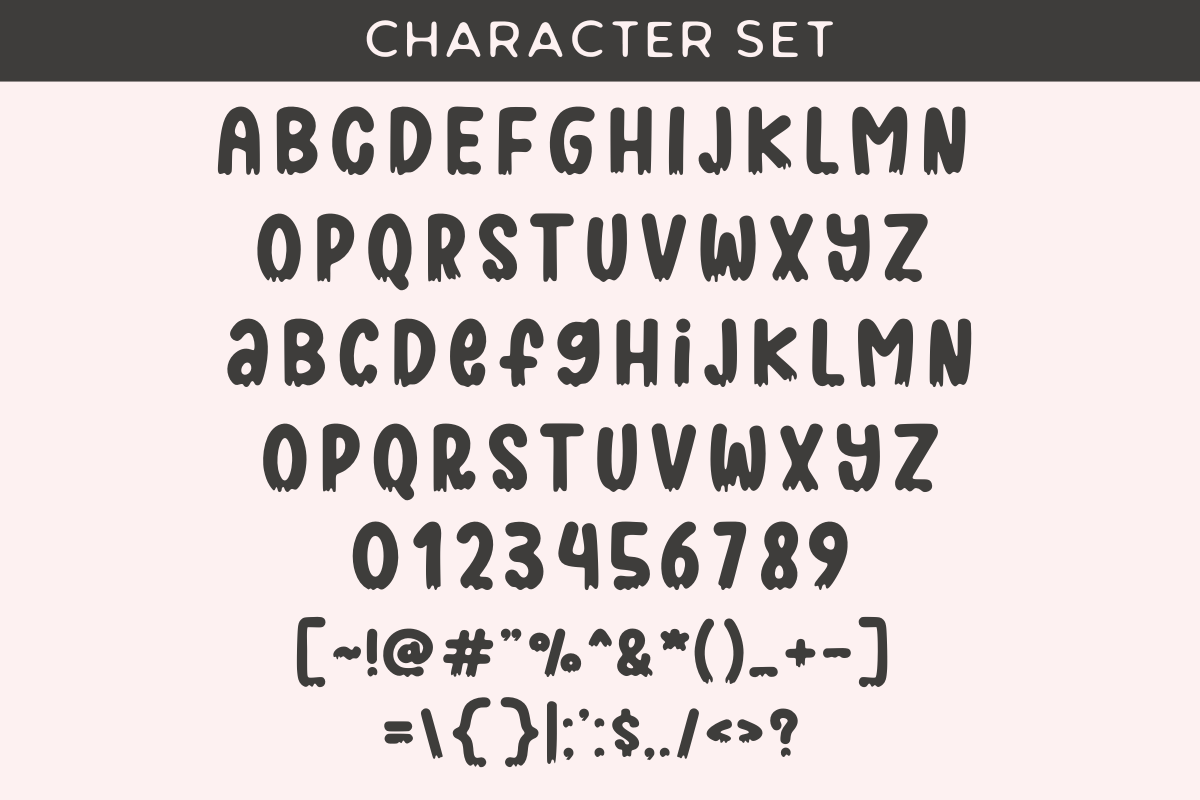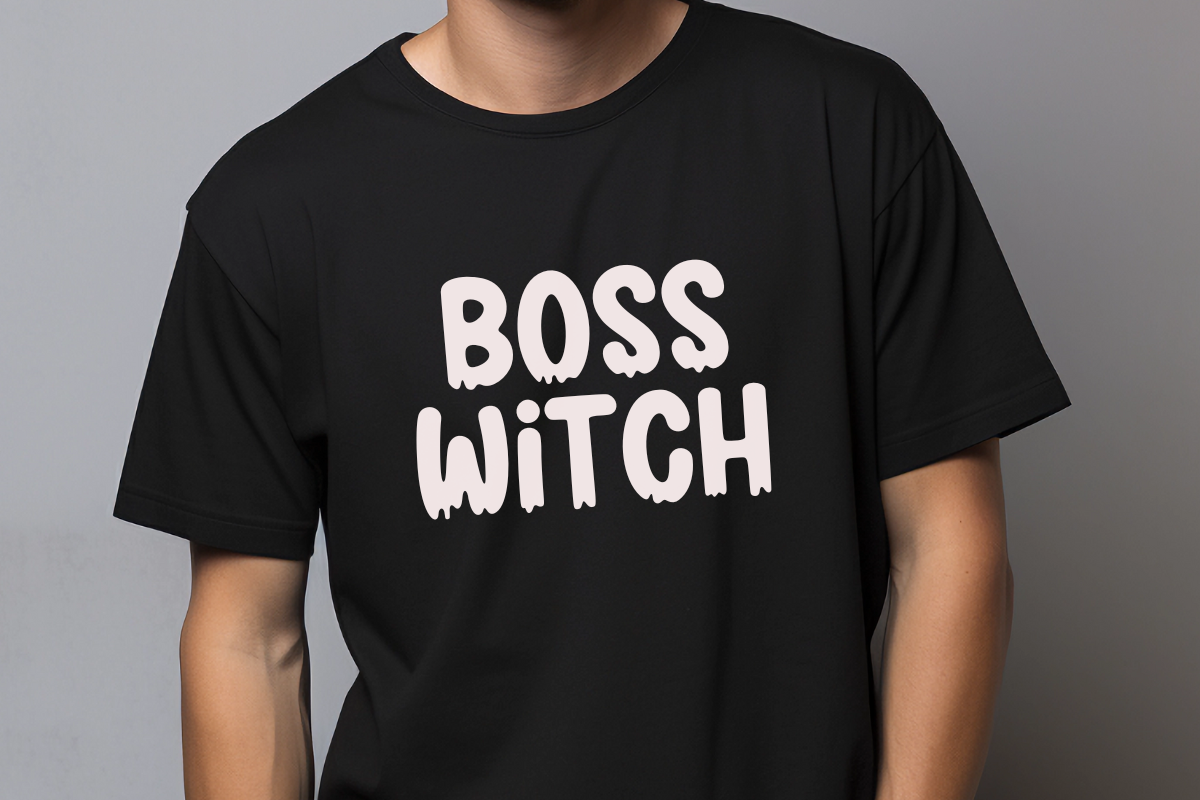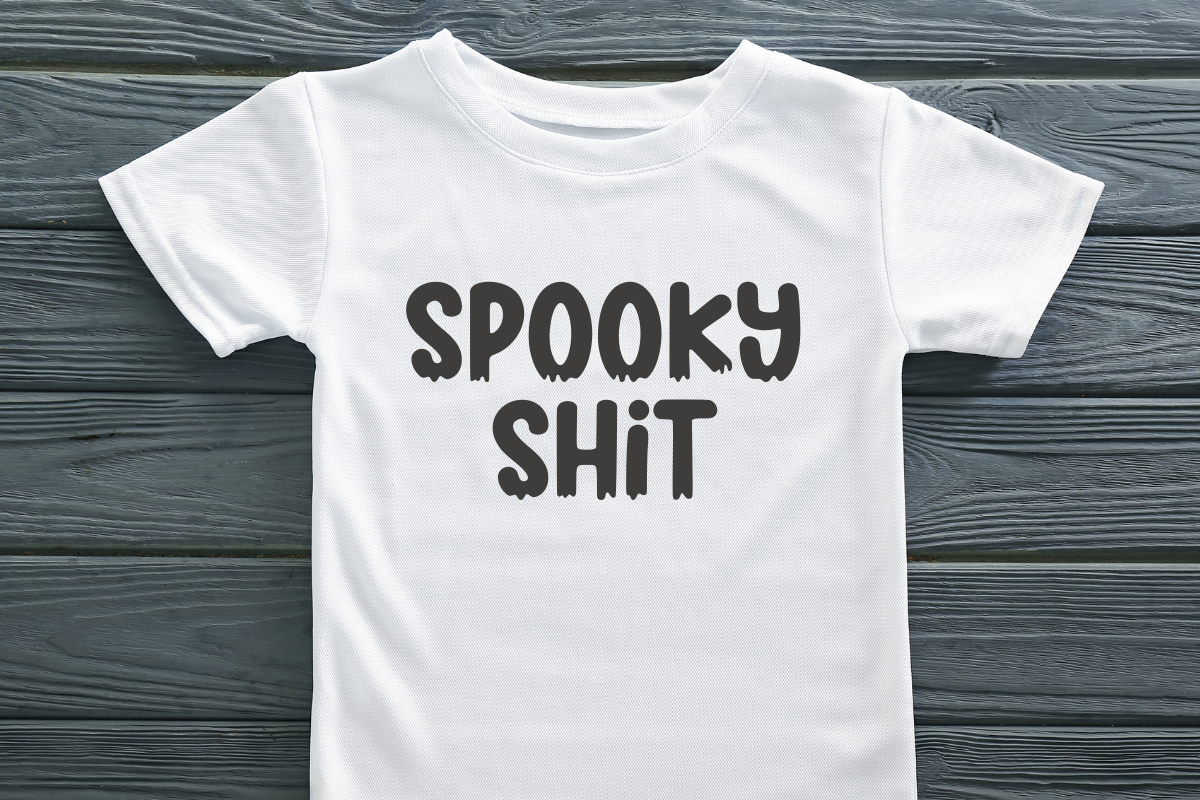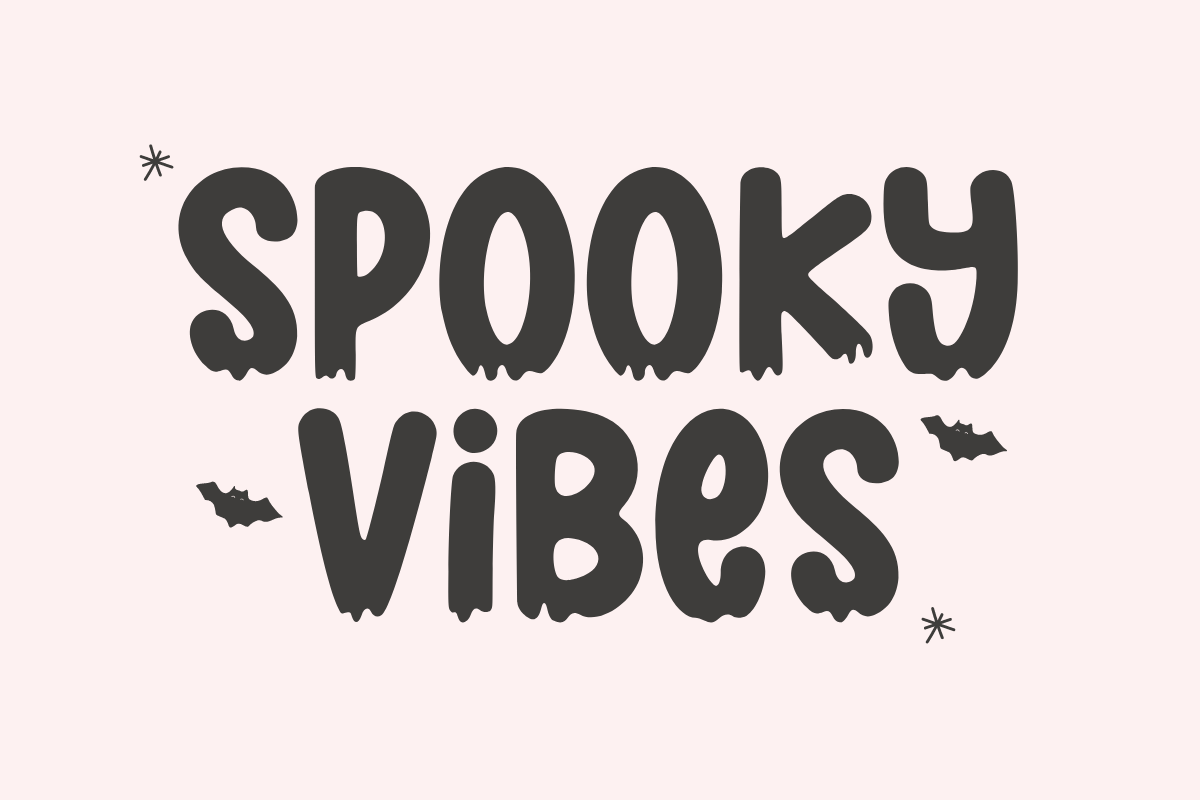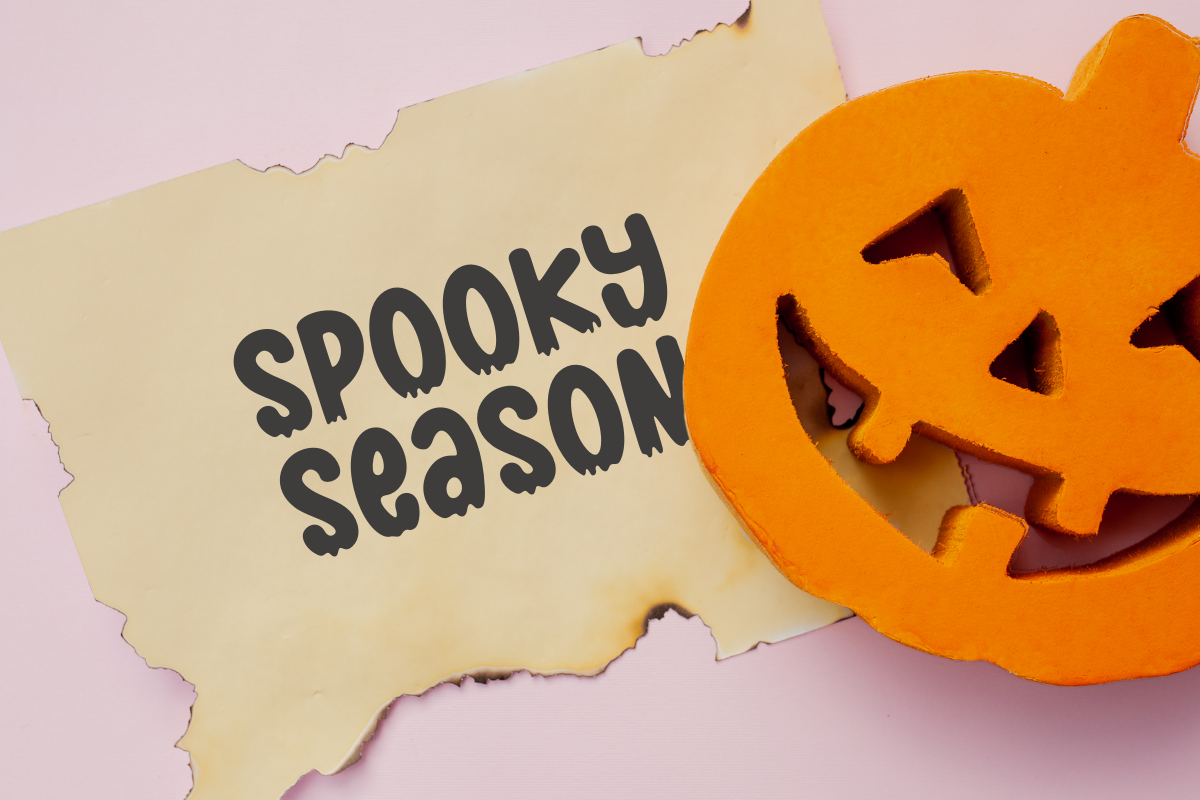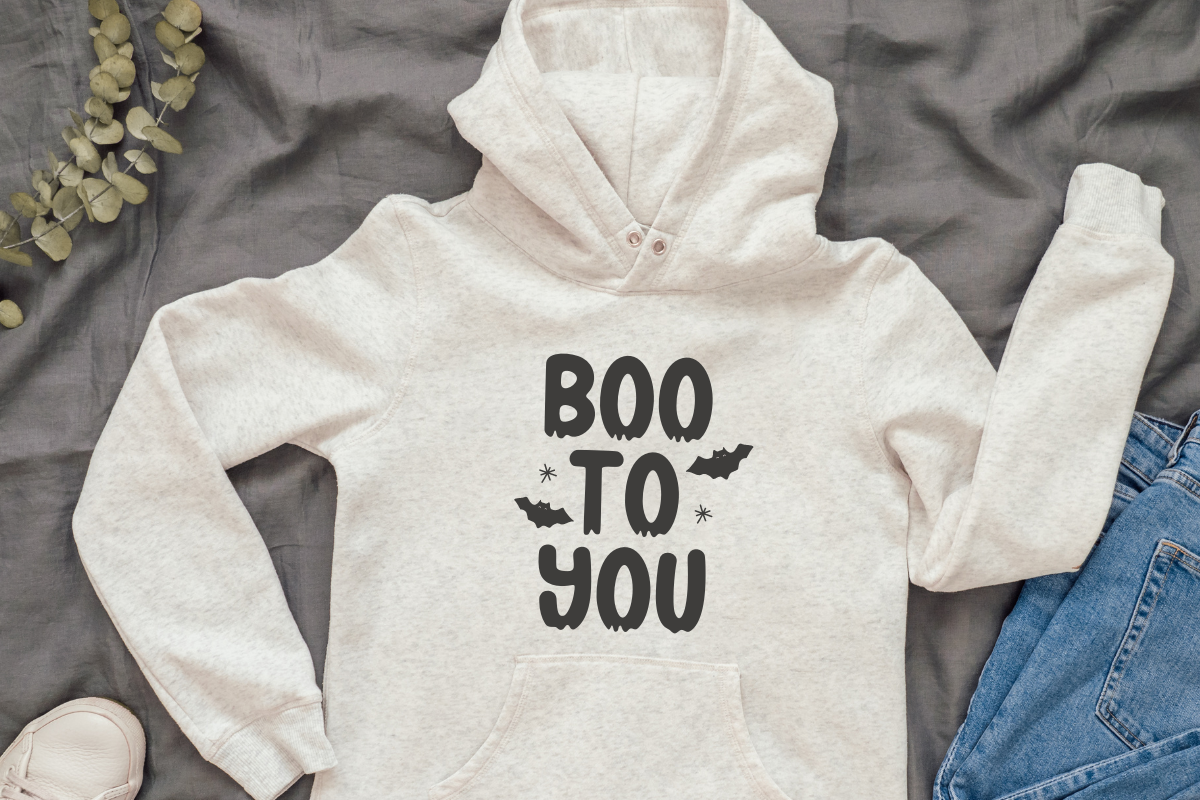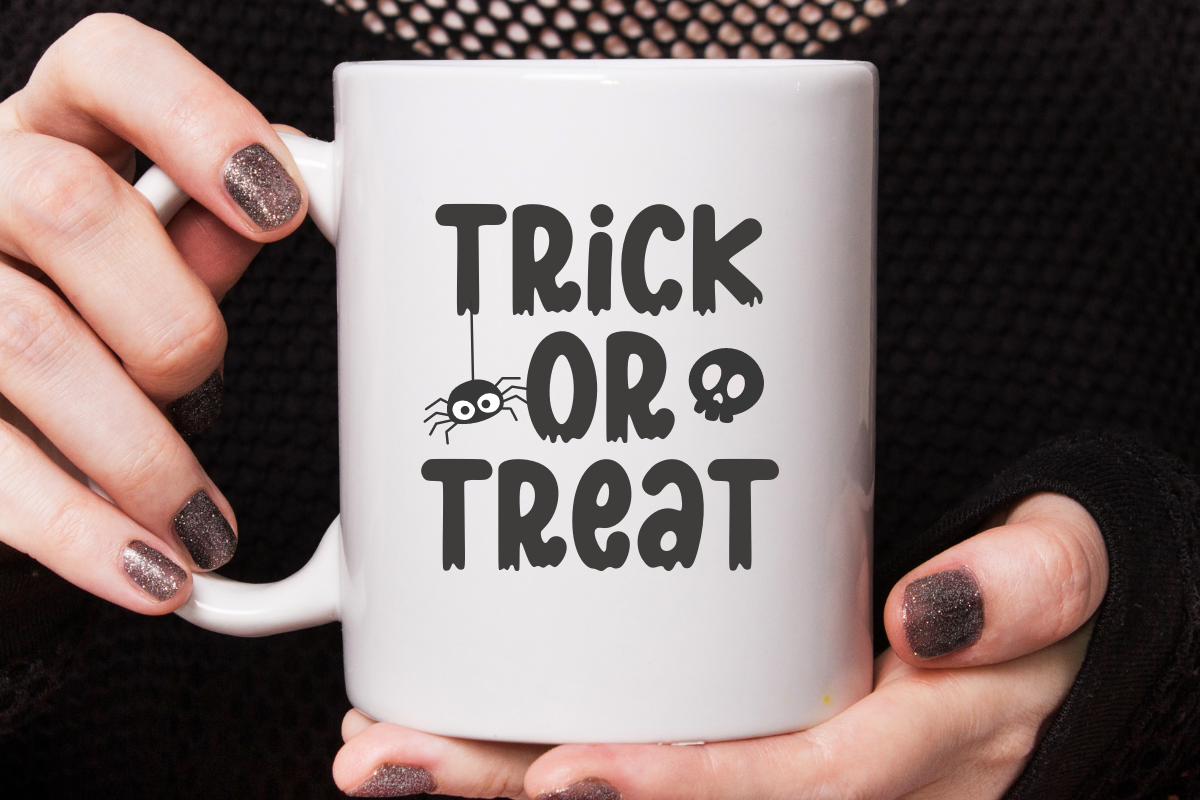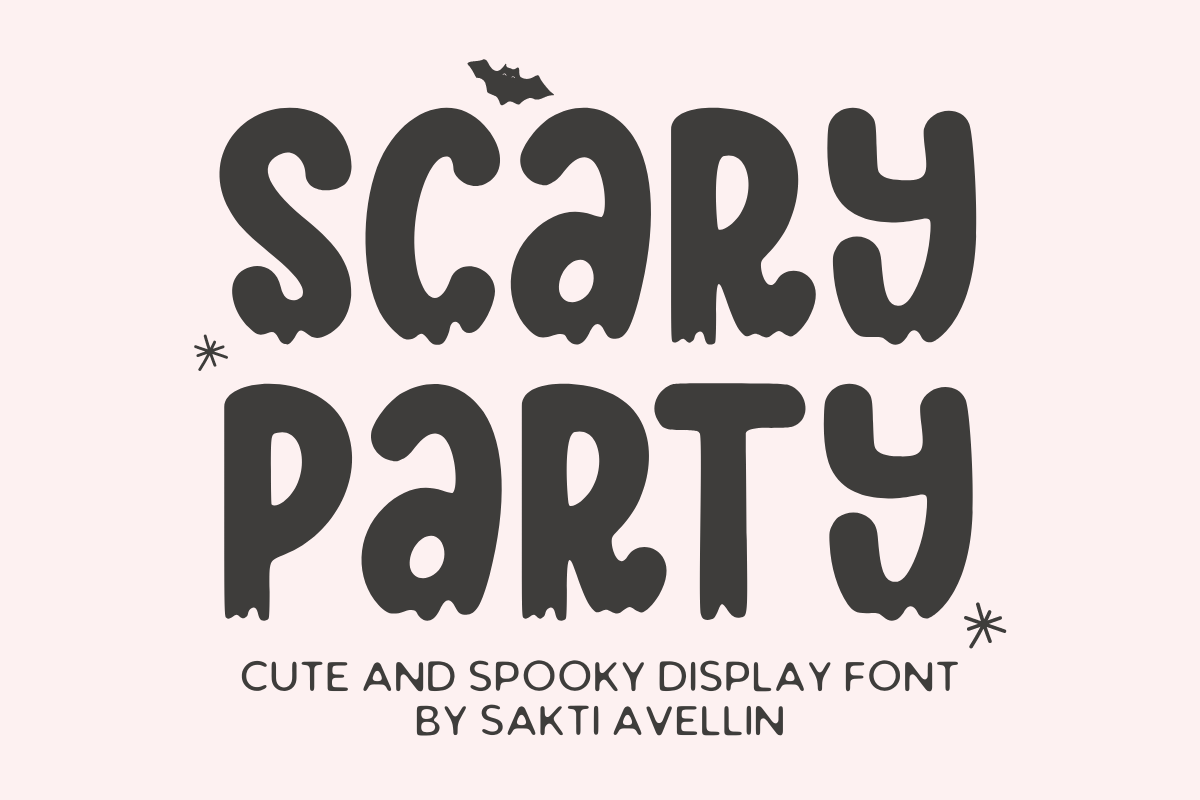
Scary Party - Spooky Display Font
Scary Party is a delightfully bold and cute spooky display font that is perfect for capturing the fun and slightly creepy vibe of the Halloween season. This chunky display font features thick, rounded characters with an engaging, melting or dripping effect, making it essential for Halloween party invitations, spooky kids' branding, fun t-shirt designs, autumn event graphics, and engaging social media posts. Its high visibility and playful style ensure it is a powerful display typeface for headlines, product packaging, and crafters seeking a unique, youthful horror look. Throw a creative bash with this delightful Halloween chunky font!